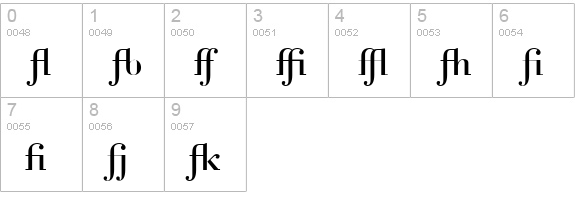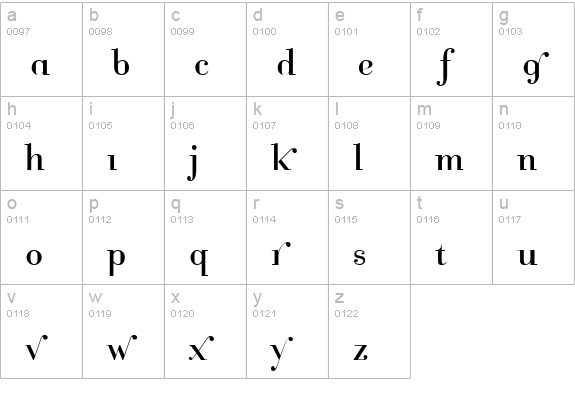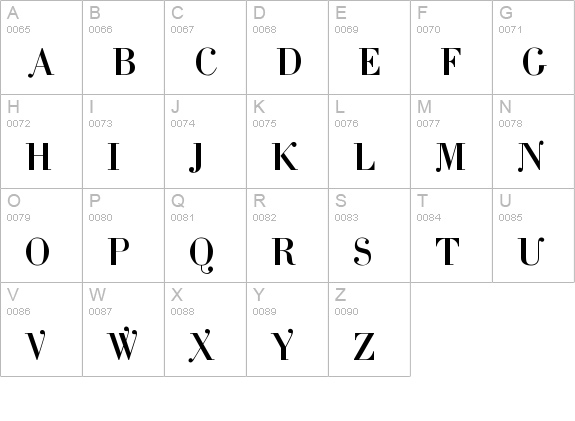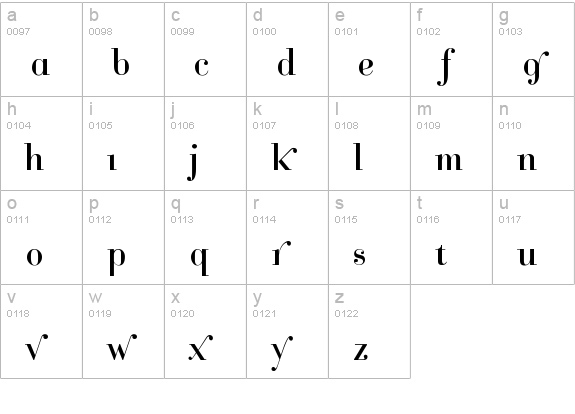
CantabileAlternate Font Details
The CantabileAlternate font is a stunning display typeface that exudes elegance and sophistication. With its intricate detailing and graceful curves, this font is perfect for adding a touch of refinement to any design project. The CantabileAlternate font is versatile and can be used for a variety of purposes, from branding to editorial design. What's even better is that this beautiful font is available for free download at FontsMarket.com. So go ahead and elevate your designs with the CantabileAlternate font today!